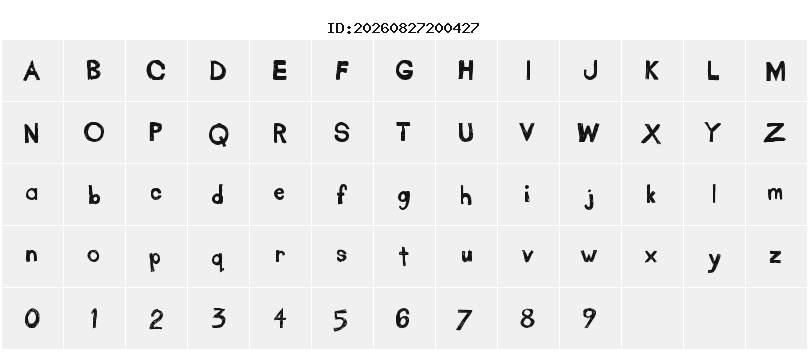
About take_out_the_garbage.ttf
take_out_the_garbage.ttf is a modern, elegant sans-serif font designed for ultimate readability and visual harmony. Perfect for branding, headlines, web design, and print materials.